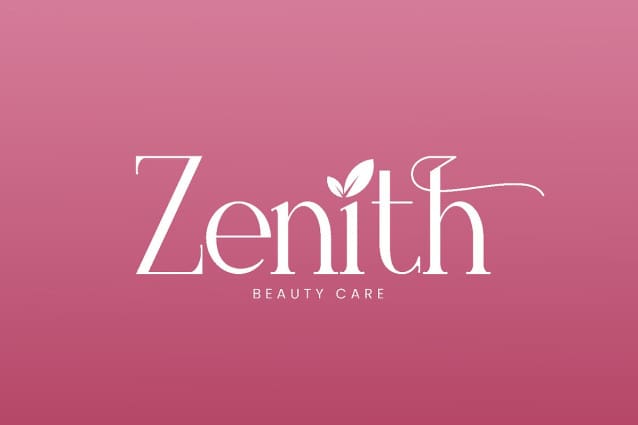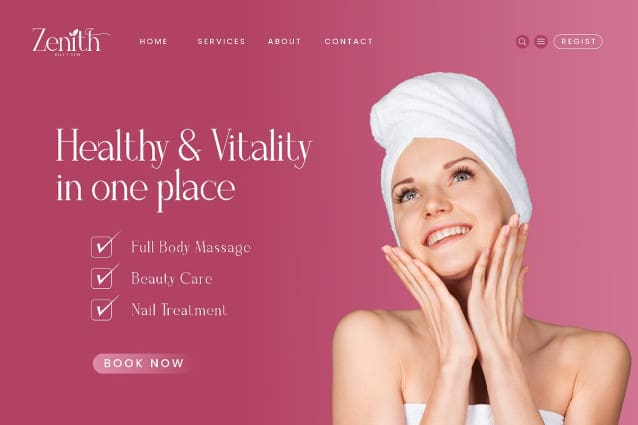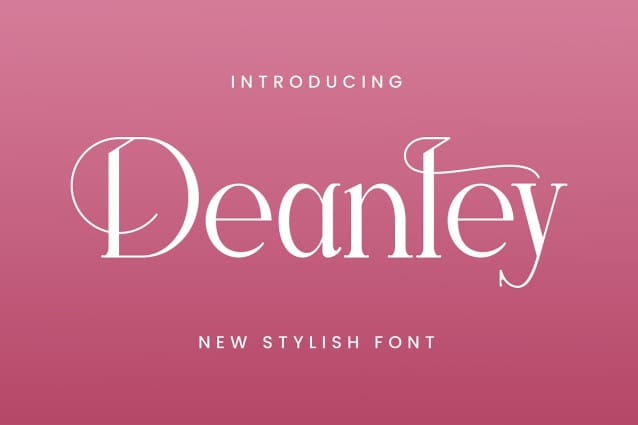
Deanley Font
Deanley Font – Stylish Serif Font, from Rishsketch Studios, is a premium Serif Font, perfect for any project that requires a distinctive, and premium feel.